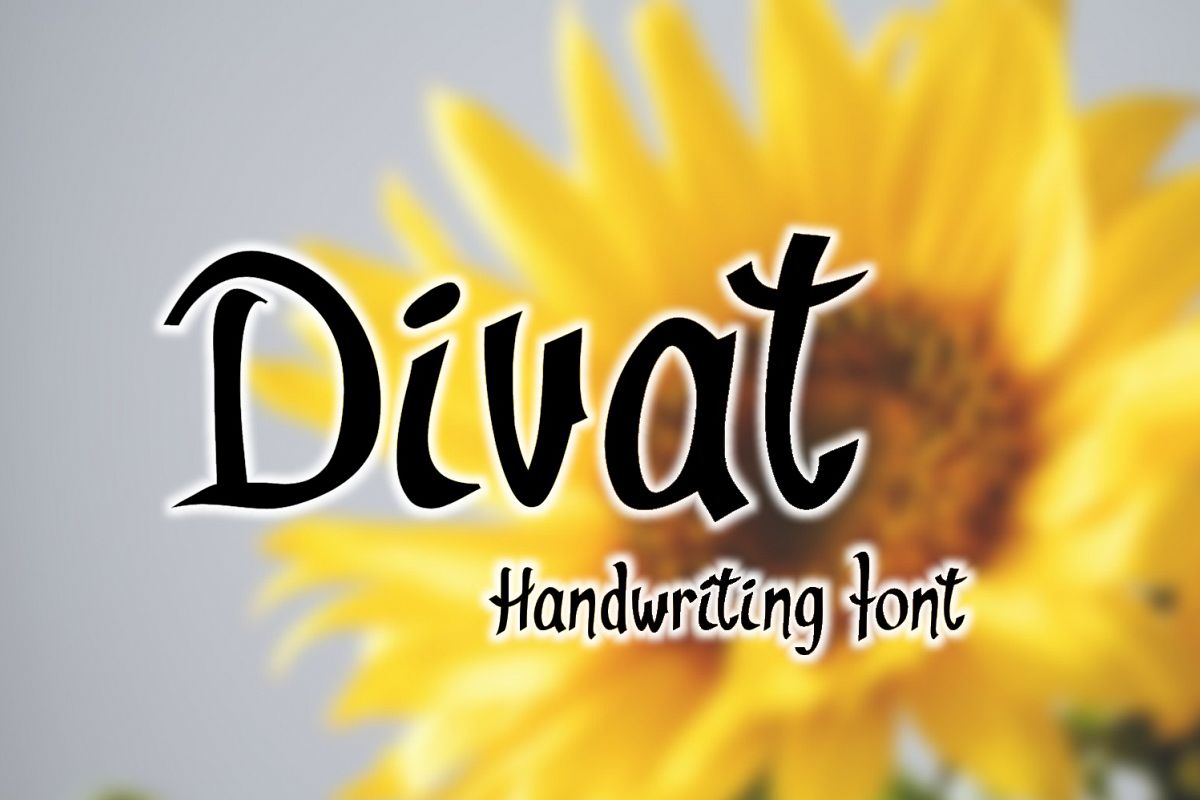
Divat Font
Introducing Divat, a hand crafted typeface.
Multi purpose use as it has upper cases, lower cases (extended with europian characters), numbers, punctuations and currency symbols.
Divat is perfect for product packaging, branding projects, homeware designs - or simply as a text overlay to any background image.
Divat Font